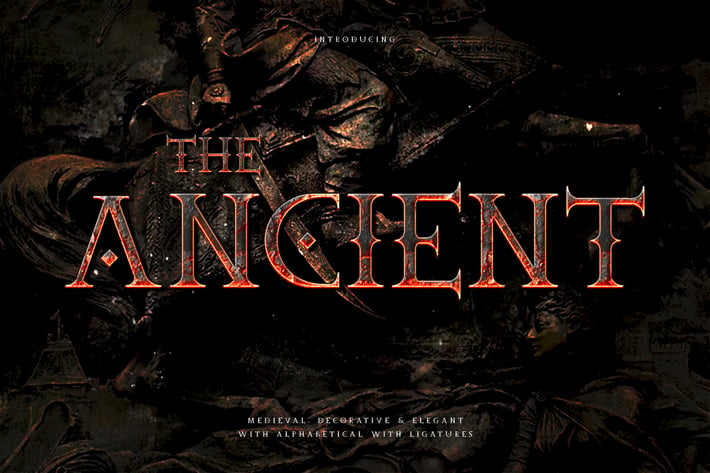
The Ancient - Medieval Sans Typeface
Introducing The Ancient font. Are you looking for a medieval sans font that has a vintage feeling? We can help! Try to download our The Ancient medieveal sans font. The font is suitable to use for many occasion such as invitation, banner, movie title, brand, event, game, and many more :)